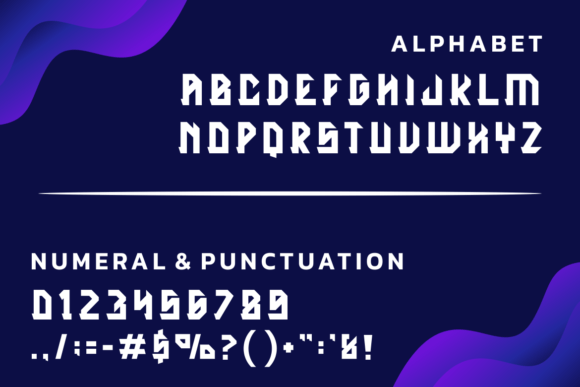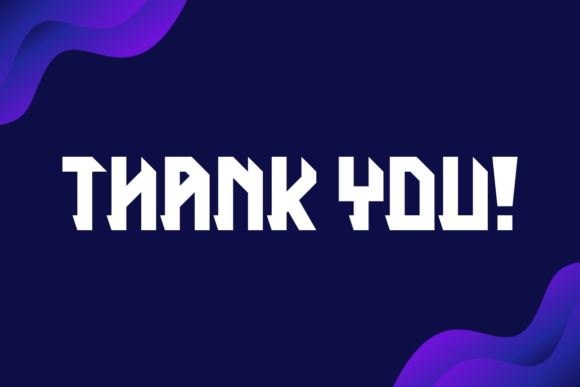
Introducing Dynamic Escort: The Ultimate Modern Techno Display Font
Are you tired of using the same old fonts for your design projects? Do you want to add a bold and daring touch to your product packaging, branding, or other creative endeavors? Look no further than Dynamic Escort, a cool and modern techno display font that’s sure to take your designs to the next level.
What is Dynamic Escort?
Dynamic Escort is a specially crafted font designed to make a statement. Its unique and futuristic style makes it perfect for projects that require a bold and eye-catching typography. Whether you’re a designer, craftsperson, or DIY enthusiast, Dynamic Escort is the ideal choice for anyone looking to add a touch of modernity and sophistication to their work.
Key Features of Dynamic Escort
- Modern and Futuristic Design: Dynamic Escort boasts a sleek and contemporary design that’s sure to turn heads. Its futuristic style makes it perfect for tech-related projects, product packaging, and branding.
- Bold and Daring Typography: This font is designed to make a statement. Its bold and daring typography is sure to grab attention and leave a lasting impression.
- Highly Versatile: Dynamic Escort can be used for a wide range of projects, including product packaging, branding, posters, flyers, and more.
- Easily Customizable: With Dynamic Escort, you can easily customize the font to fit your project’s specific needs. Experiment with different colors, sizes, and styles to create a unique look.
Use Cases for Dynamic Escort
Dynamic Escort is a versatile font that can be used for a variety of projects. Here are some use cases to get you started:
- Product Packaging: Add a bold and modern touch to your product packaging with Dynamic Escort. Perfect for tech gadgets, cosmetics, and food products.
- Branding: Create a lasting impression with Dynamic Escort. Use it for your company’s logo, business cards, or marketing materials.
- Posters and Flyers: Make your posters and flyers stand out with Dynamic Escort. Its bold and daring typography is sure to grab attention.
- Digital Media: Use Dynamic Escort for your digital media projects, such as video game titles, mobile app logos, or website headers.
Why Choose Dynamic Escort?
With so many fonts available, why choose Dynamic Escort? Here are just a few reasons:
- Unique and Modern Design: Dynamic Escort offers a fresh and modern design that’s sure to set you apart from the crowd.
- High-Quality Typography: This font is crafted with precision and attention to detail, ensuring high-quality typography for your projects.
In conclusion, Dynamic Escort is a cool and modern techno display font that’s perfect for designers and crafters looking to add a bold and daring touch to their projects. With its unique and futuristic design, highly versatile nature, and ease of use, Dynamic Escort is the ideal choice for anyone looking to take their designs to the next level. So why wait? Download Dynamic Escort today and start creating stunning designs that demand attention!